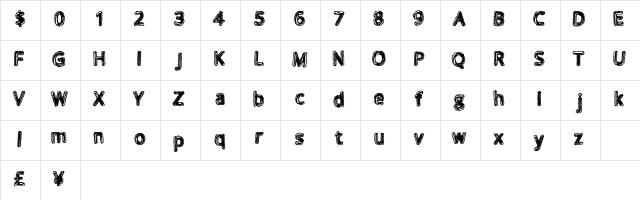
WalkingDead Regular
Design Context for WalkingDead Typeface
WalkingDead is a composed and adaptable typeface that performs quietly and consistently across a wide range of design contexts.
Pro Tip: Use WalkingDead in both headline and body roles to test its range before committing to a single application.